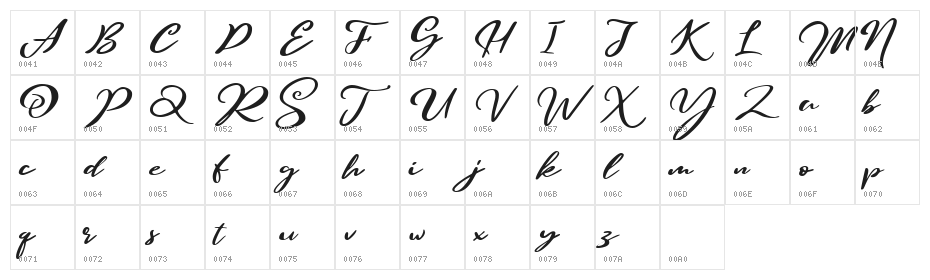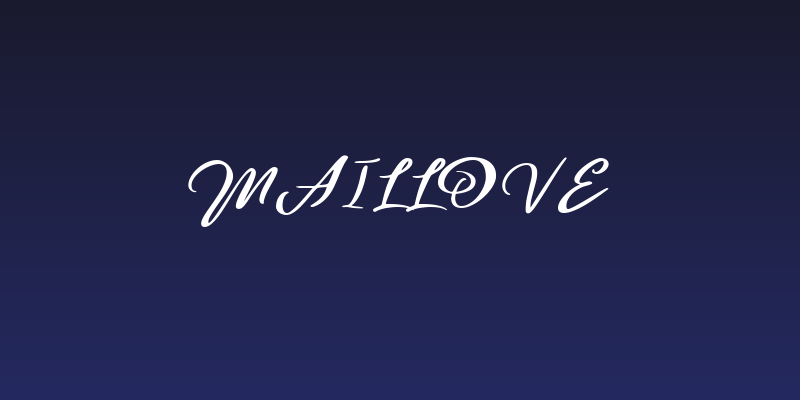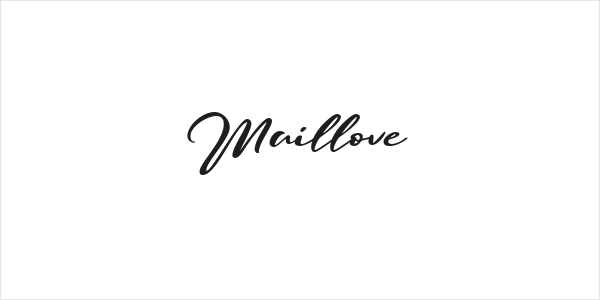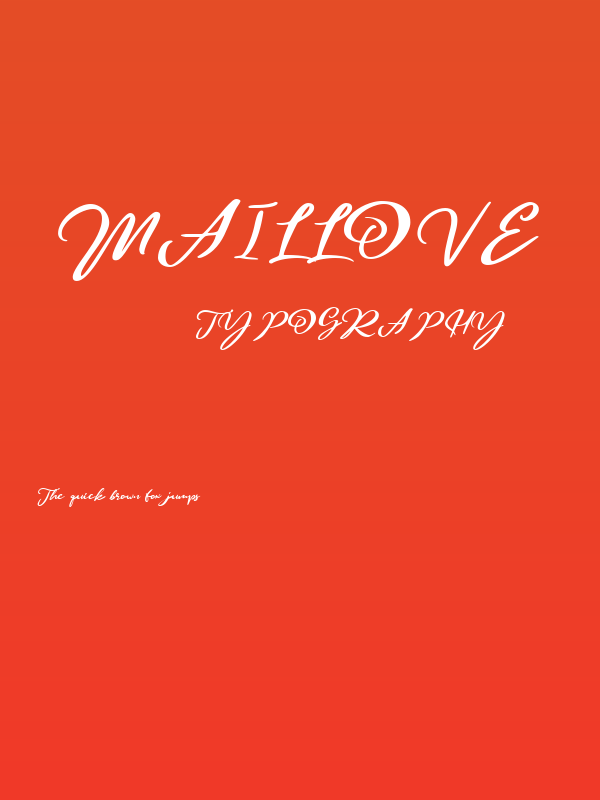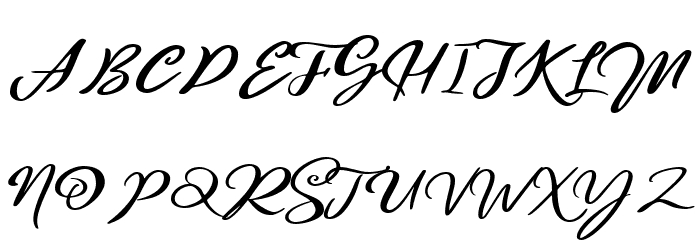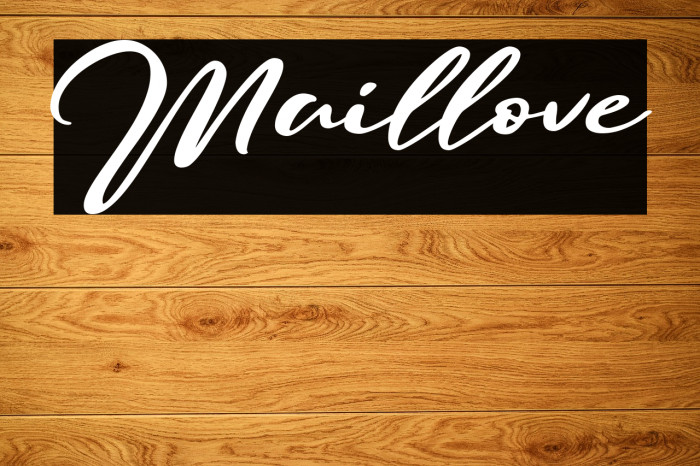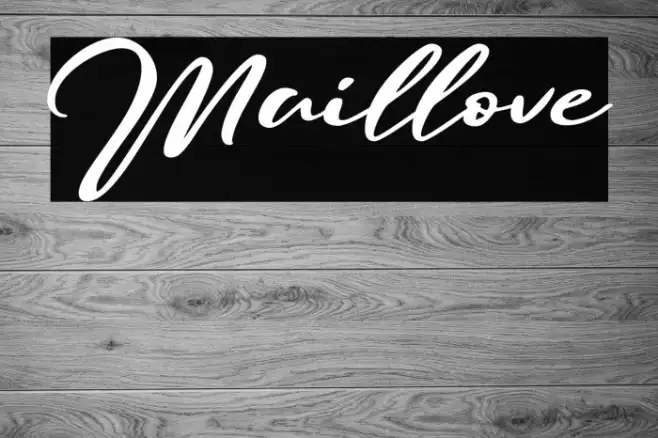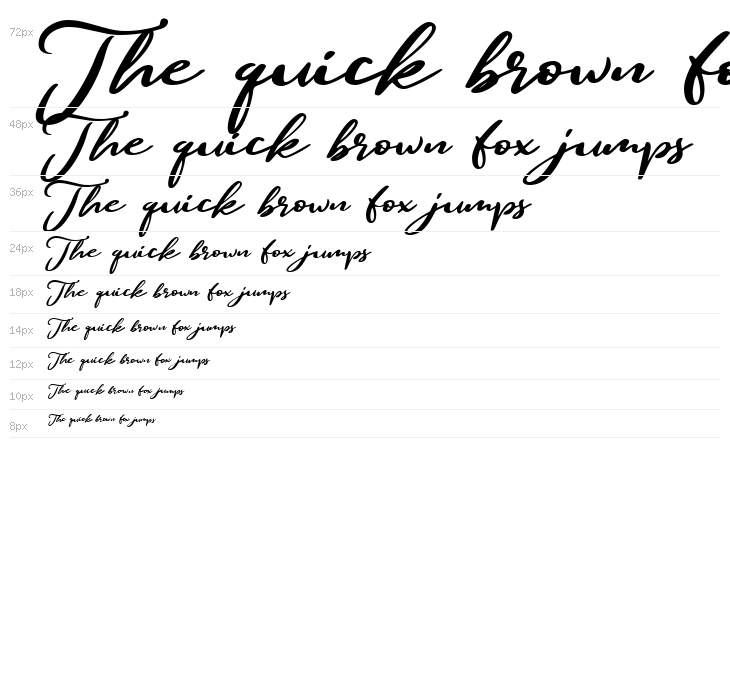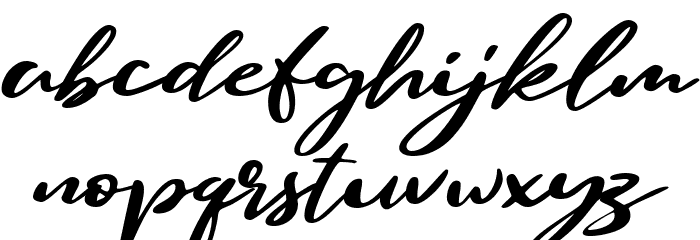
Maillove Font
Maillove Description
This font exudes a sense of elegance and fluidity, characterized by its cursive script style. The letters are interconnected with smooth, flowing strokes that mimic the natural motion of handwriting. The uppercase letters are slightly more ornate, with flourishes that add a touch of sophistication. The lowercase letters maintain a consistent rhythm, enhancing readability while retaining an artistic flair. The overall appearance is both graceful and dynamic, making it suitable for projects that require a personal or romantic touch.
| Proposed Projects | Ideal for wedding invitations, greeting cards, personal branding, and romantic-themed designs. |